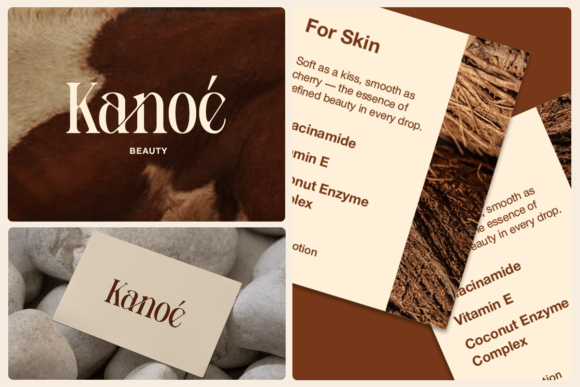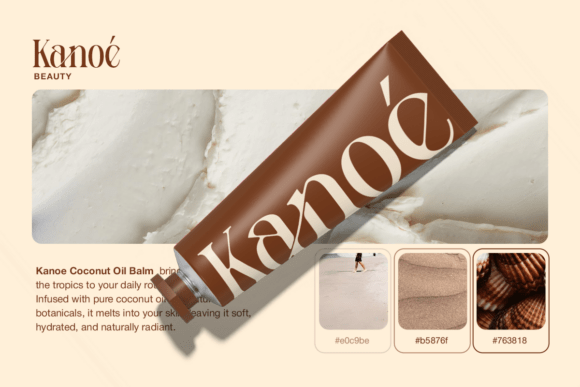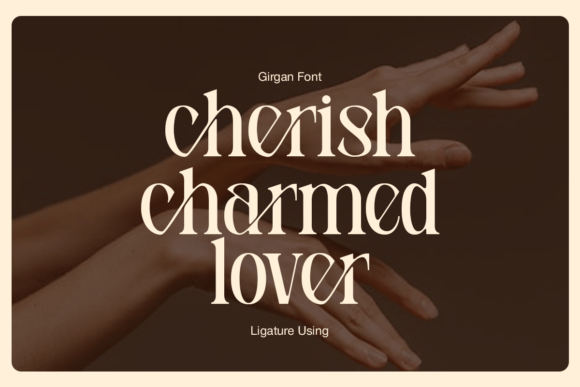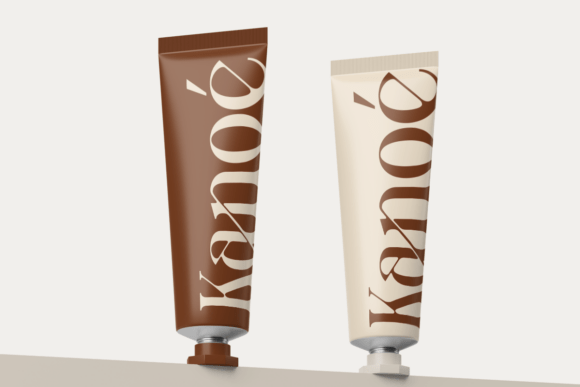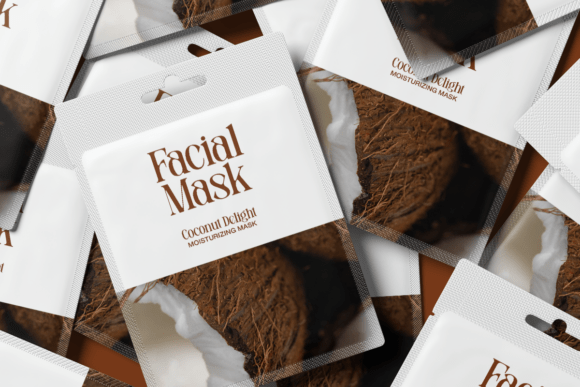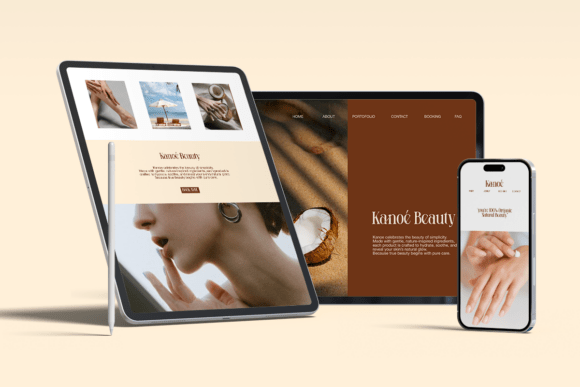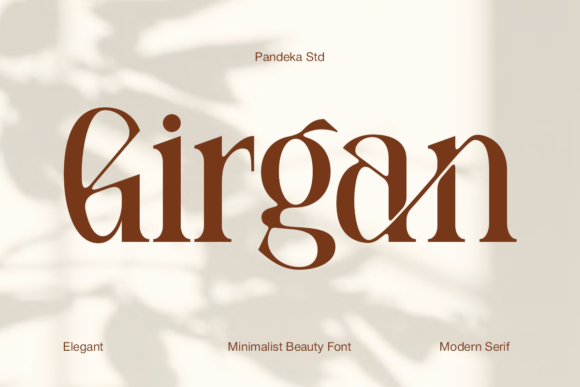
Introducing Girgan Font: The Epitome of Elegant Minimalism
💃 Girgan, a name that echoes elegance and sophistication, is a modern serif font that embodies the perfect blend of natural beauty and contemporary style. Designed to make a statement, Girgan is an exquisite choice for brands and designers seeking to infuse their visual identity with a touch of luxury and refinement.
The Design Philosophy of Girgan
Girgan’s design is rooted in the principles of elegant minimalism, making it a standout in the world of typography. This stunning modern serif font is characterized by its strong vertical emphasis, moderate contrast, and unique decorative swashes and ornate terminals. These stylized elements, particularly noticeable on the ‘G’ and ‘r’, transform simple words into bespoke, luxurious logotypes that exude opulence and sophistication.
Key Features of Girgan Font
- Modern Serif Structure: Girgan boasts a classic serif structure with a modern twist, making it perfect for brands looking for a sophisticated and contemporary look.
- Elegant Minimalism: The font’s clean lines and minimalist approach ensure that it remains uncluttered, while its stylized elements add a touch of luxury.
- Unique Swashes and Terminals: The decorative swashes and ornate terminals, especially on the ‘G’ and ‘r’, give Girgan its distinctive flair, making it ideal for high-end branding.
- High-End Beauty: Girgan’s design is inspired by high-end beauty and fashion, making it a perfect fit for cosmetics, luxury product packaging, and fine stationery.
Perfect for Sophisticated Branding
Girgan is more than just a font; it’s a statement piece for brands aiming to convey elegance, sophistication, and luxury. Its applications are vast, ranging from:
- Cosmetics and Beauty Branding: Add a touch of glamour to your beauty brand with Girgan’s luxurious and elegant feel.
- High-Fashion Editorials: Elevate your fashion content with a font that screams sophistication and style.
- Luxury Product Packaging: Make your luxury products stand out with packaging that exudes elegance and refinement.
- Fine Stationery: Bring a level of sophistication to your stationery that matches your high-end brand image.
Why Choose Girgan?
In a world where branding is everything, Girgan offers a unique opportunity to stand out. Its ability to remain clean and minimalist while incorporating elaborate, eye-catching flourishes makes it a versatile choice for designers and brands. With Girgan, you can:
- Elevate Your Brand: Instantly add a level of sophistication and elegance to your brand.
- Stand Out: Use Girgan’s unique features to differentiate your brand in a crowded market.
- Enhance Your Visual Identity: Create a cohesive and luxurious visual identity that resonates with your target audience.
Girgan font is a masterpiece of modern typography, offering a perfect blend of elegance, minimalism, and luxury. Whether you’re a designer looking to elevate your projects or a brand aiming to redefine your visual identity, Girgan is an exceptional choice. Its unique blend of classic serif structure and contemporary stylizations ensures that your brand stands out with a touch of sophistication and grace. Discover the beauty of Girgan and transform your brand’s visual identity today.